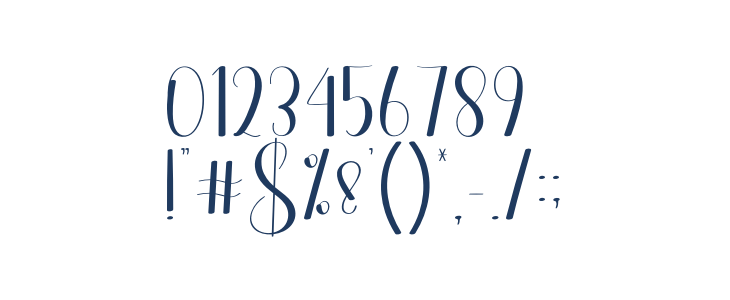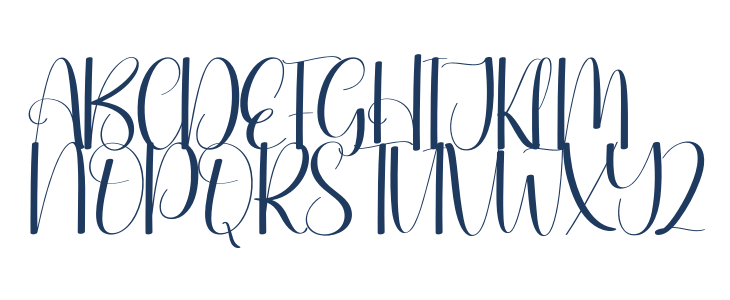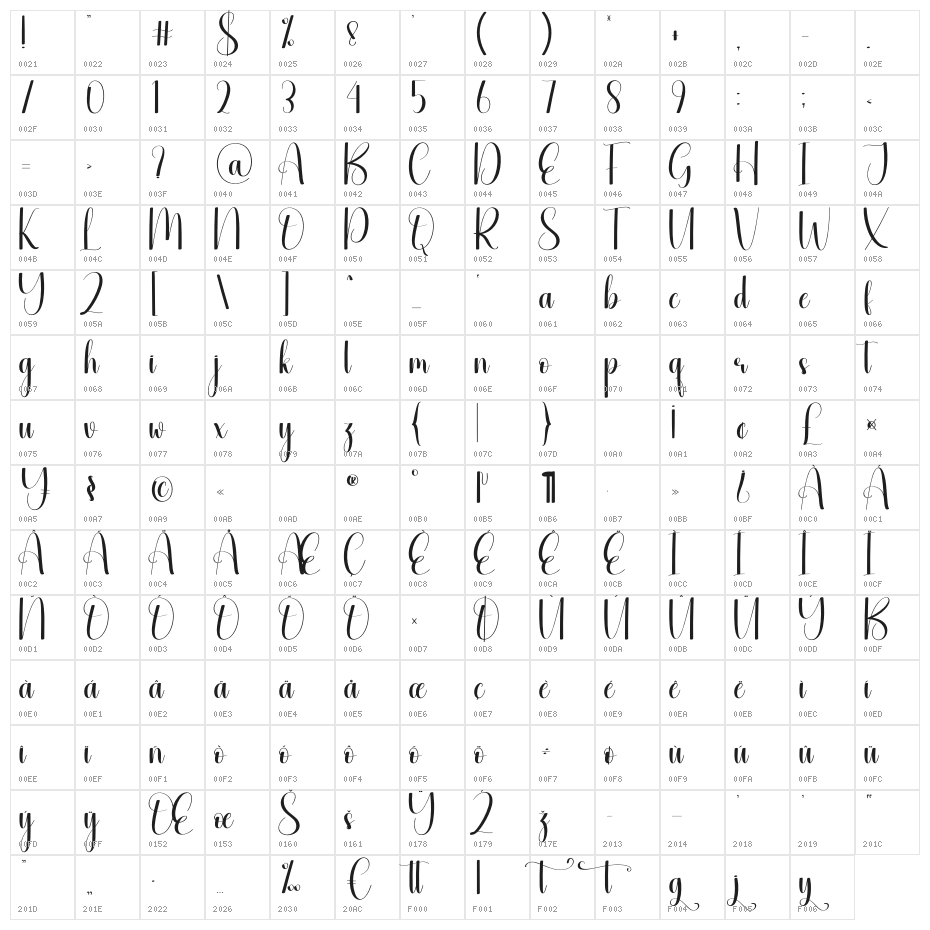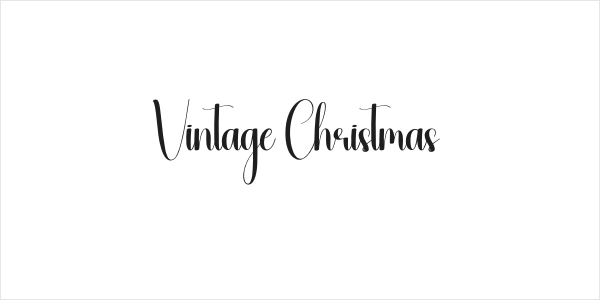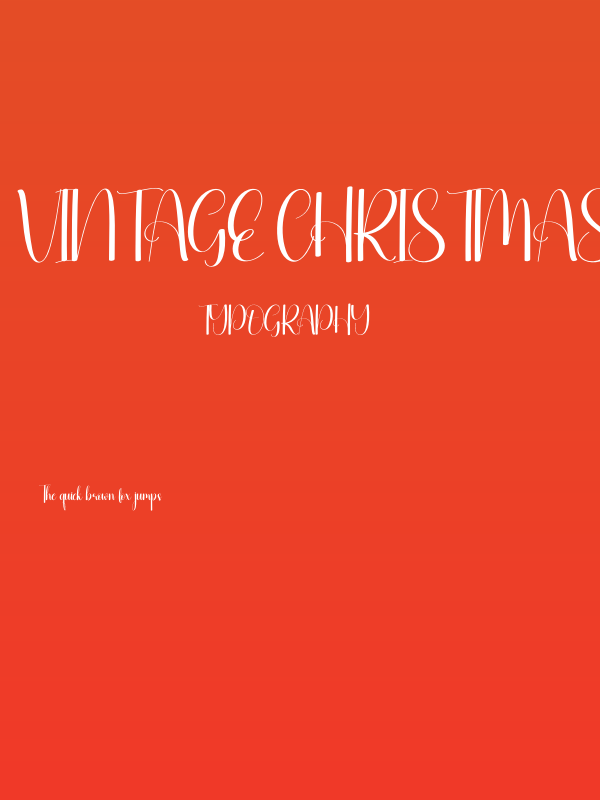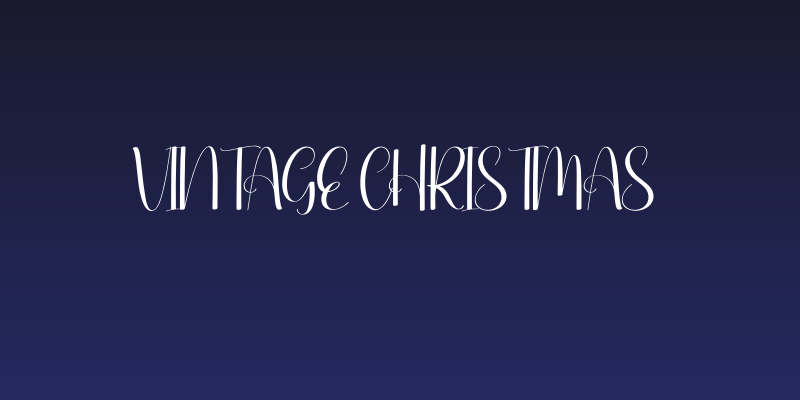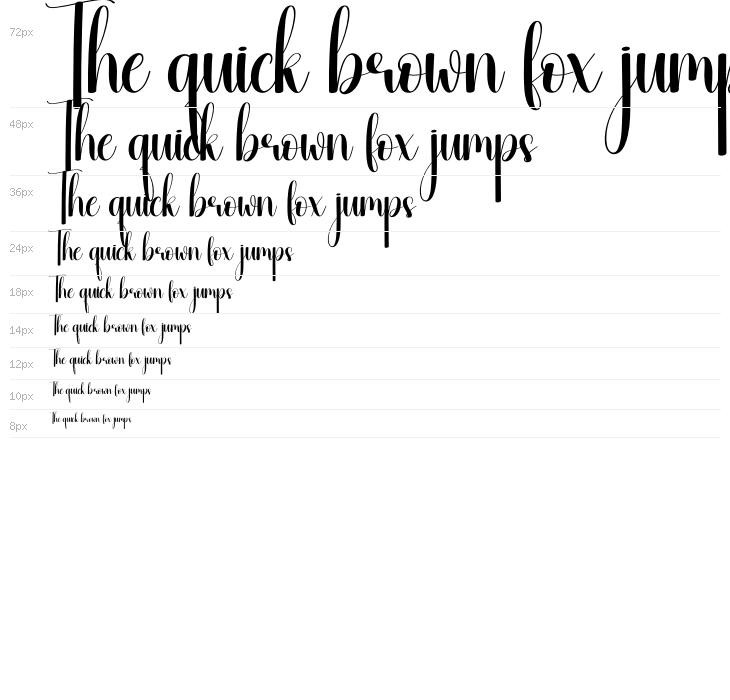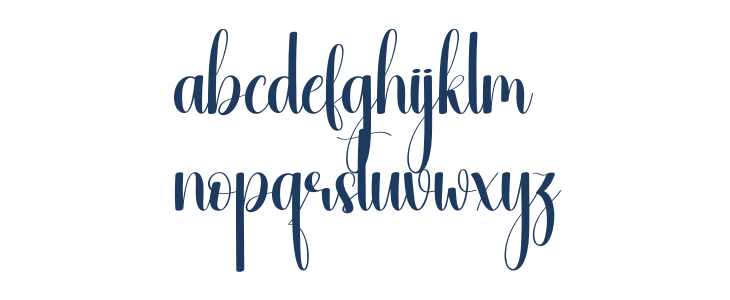
Vintage Christmas Font
Vintage Christmas Description
A decorative script font with tall, narrow letterforms, featuring high contrast between thick and thin strokes and elegant, flowing lines. The uppercase letters are particularly ornate with exaggerated loops and swashes, while the lowercase maintains a playful, handwritten feel.
| Overall Style | Decorative, Vintage, Festive |
| Use Case | Headlines, Logos, Invitations, Decorative text |
| Proposed Projects | Holiday cards, invitations, festive branding, event posters, decorative signage. |